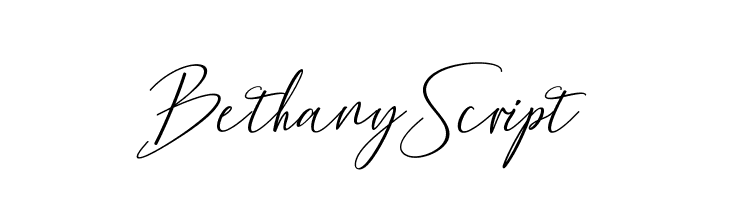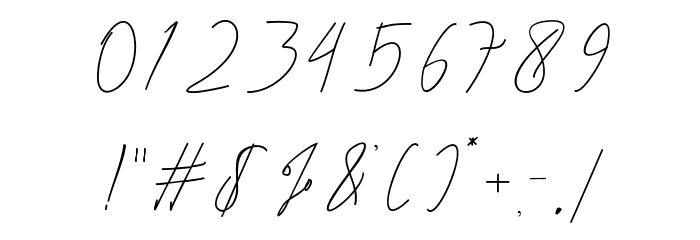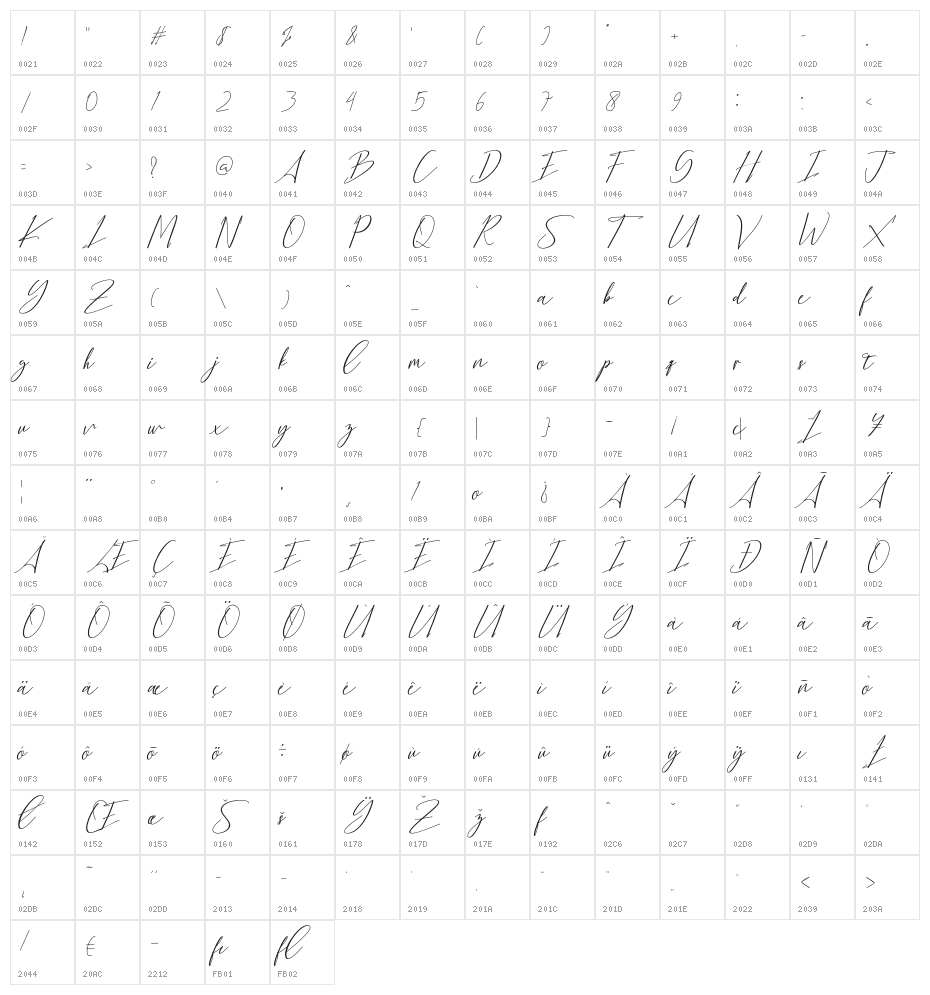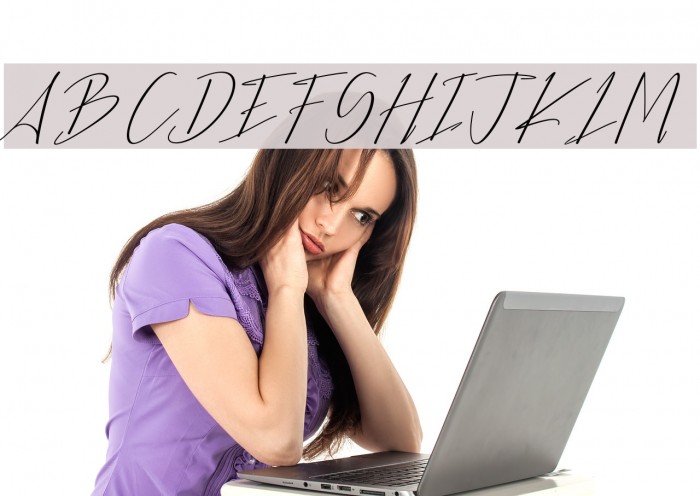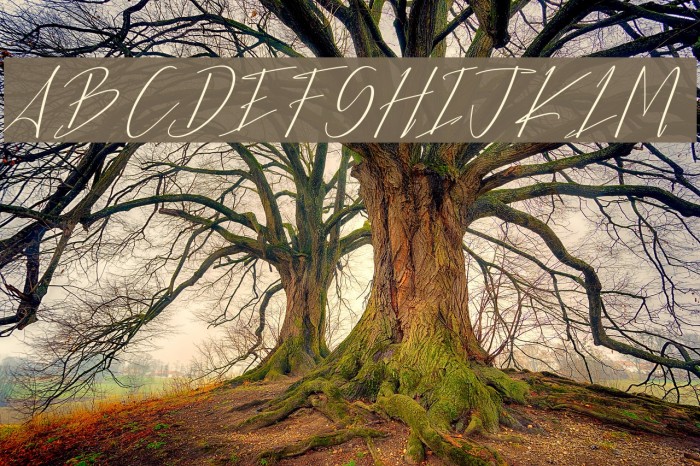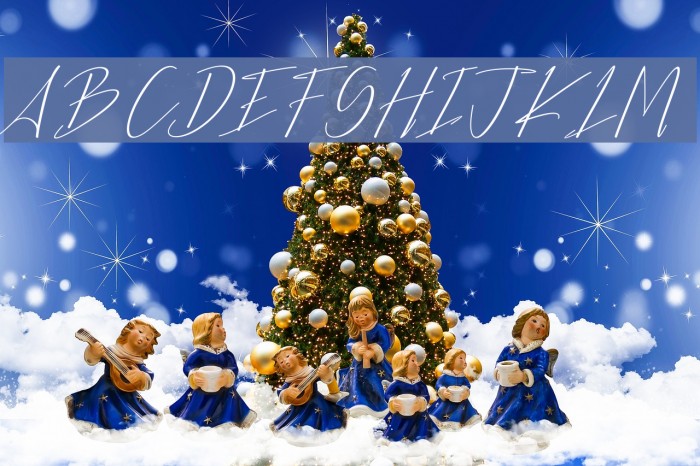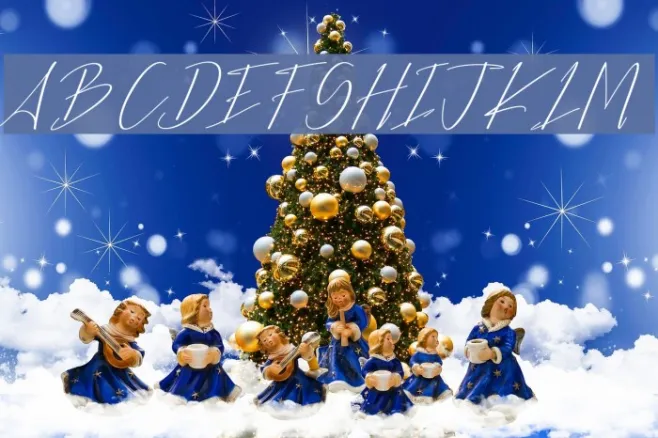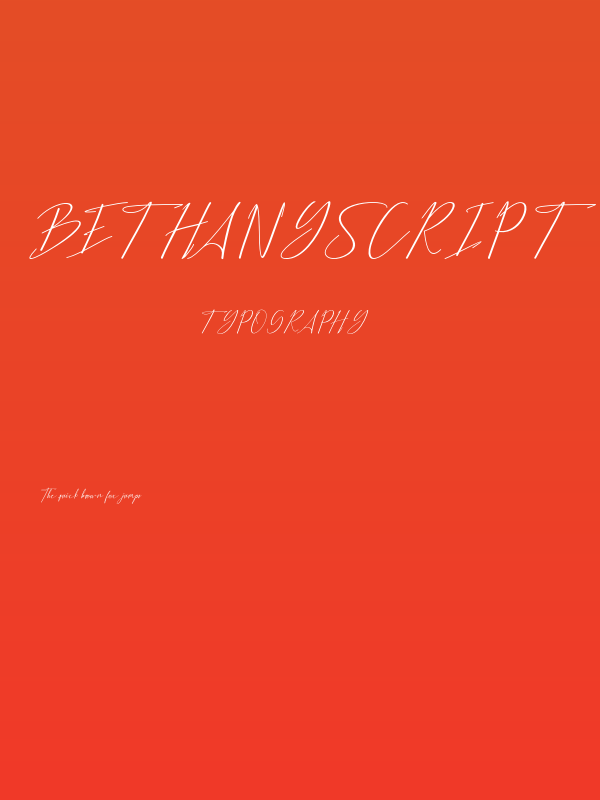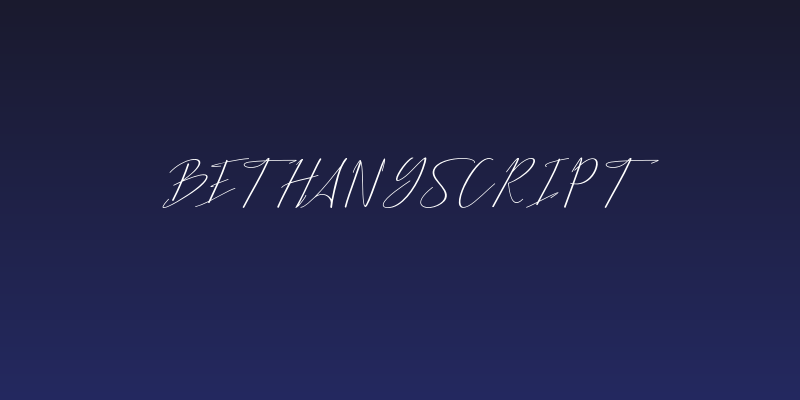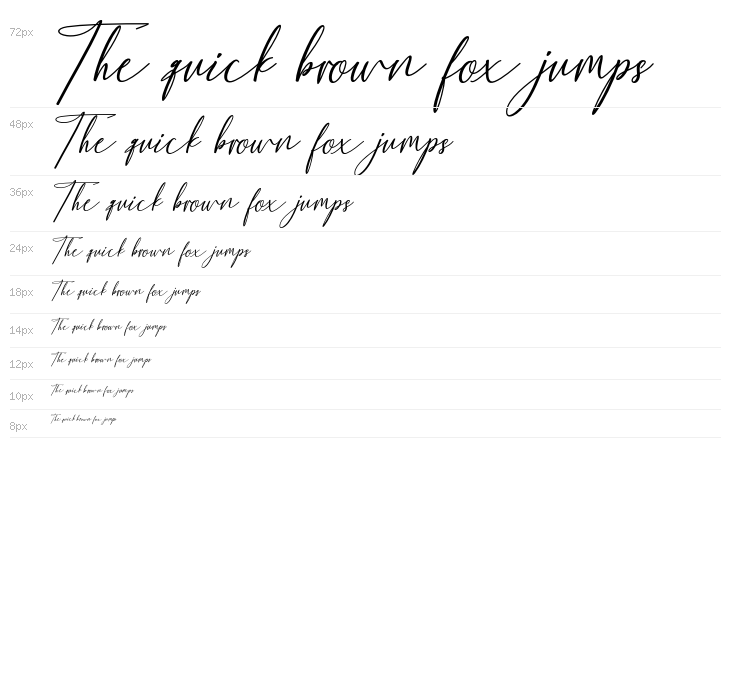
BethanyScript Font
BethanyScript Description
This elegant script font features a flowing, cursive style with a natural handwritten appearance. The uppercase letters are tall and slender, with graceful loops and swashes that add a touch of sophistication. The lowercase letters are more compact, maintaining the fluidity and connectedness typical of cursive writing. The numerals and special characters are consistent with the overall style, offering a cohesive look. This font exudes a sense of elegance and refinement, making it suitable for formal invitations, branding, and decorative purposes.
| Use Case | Logos, Invitations, Decorative Text |
| Proposed Projects | Ideal for wedding invitations, elegant branding, greeting cards, and decorative signage. |